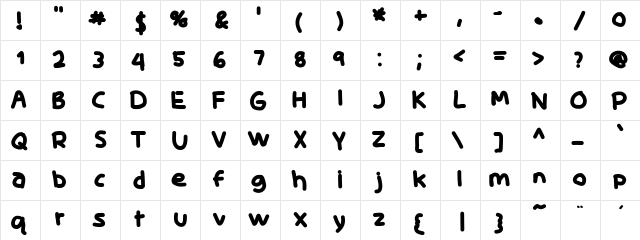
Skidoo Fat Free Font
Skidoo Fat
Style: Fat
Foundry: Skid Maher & Robothaus
Designer: Skid Maher & Robothaus
Skidoo Fat
Complete Skidoo Fat glyph index. Displaying only characters natively supported by Skidoo Fat font.
Design Context for Skidoo
Skidoo is a composed and adaptable typeface that performs quietly and consistently across a wide range of design contexts.